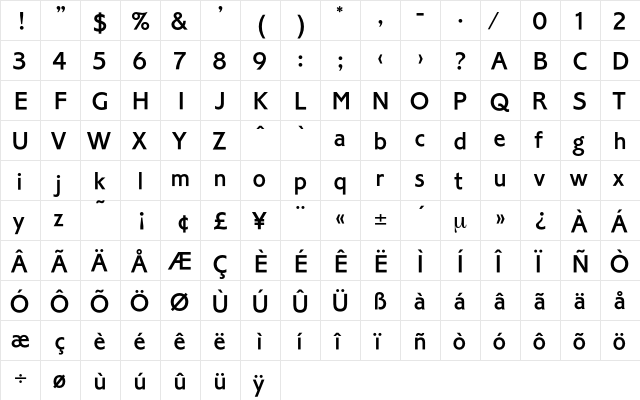
Graveur Regular
Design Context for Graveur Typeface
Graveur is a composed and adaptable typeface that performs quietly and consistently across a wide range of design contexts.